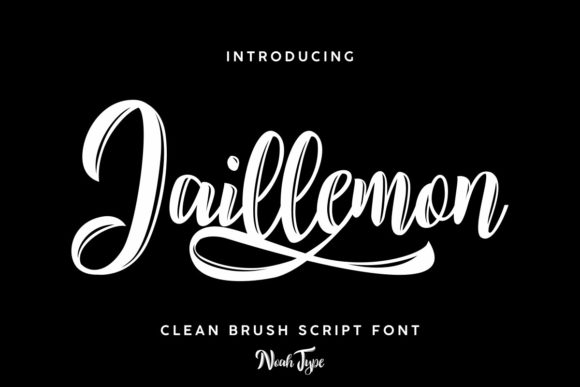
Indulge in the allure of Jaillemon Font, the epitome of graceful penmanship brought to life in a digital realm. This exceptional script font boasts an elegant and timeless aesthetic, poised to elevate your creative endeavors to new heights.
Crafted with meticulous care by the renowned NoahType, Jaillemon Font is a testament to the enduring artistry of handwritten forms. Its flowing strokes dance across the screen, evoking the effortless beauty of traditional calligraphy. Whether you're a seasoned designer or just starting to explore the world of typography, Jaillemon Font is the perfect tool to add a touch of sophistication and flair to your projects.
Immerse yourself in the captivating world of Jaillemon Font and let its enchanting style ignite your creativity. Perfect for crafting personalized signatures, mesmerizing logos, and stunning invitations, this font is a versatile companion for all your design needs.
Unlock the power of Jaillemon Font and unleash your imagination. Its elegant curves and timeless appeal will transform your words into works of art, leaving a lasting impression on every reader. Embrace the beauty of handwritten typography and elevate your projects with Jaillemon Font today!